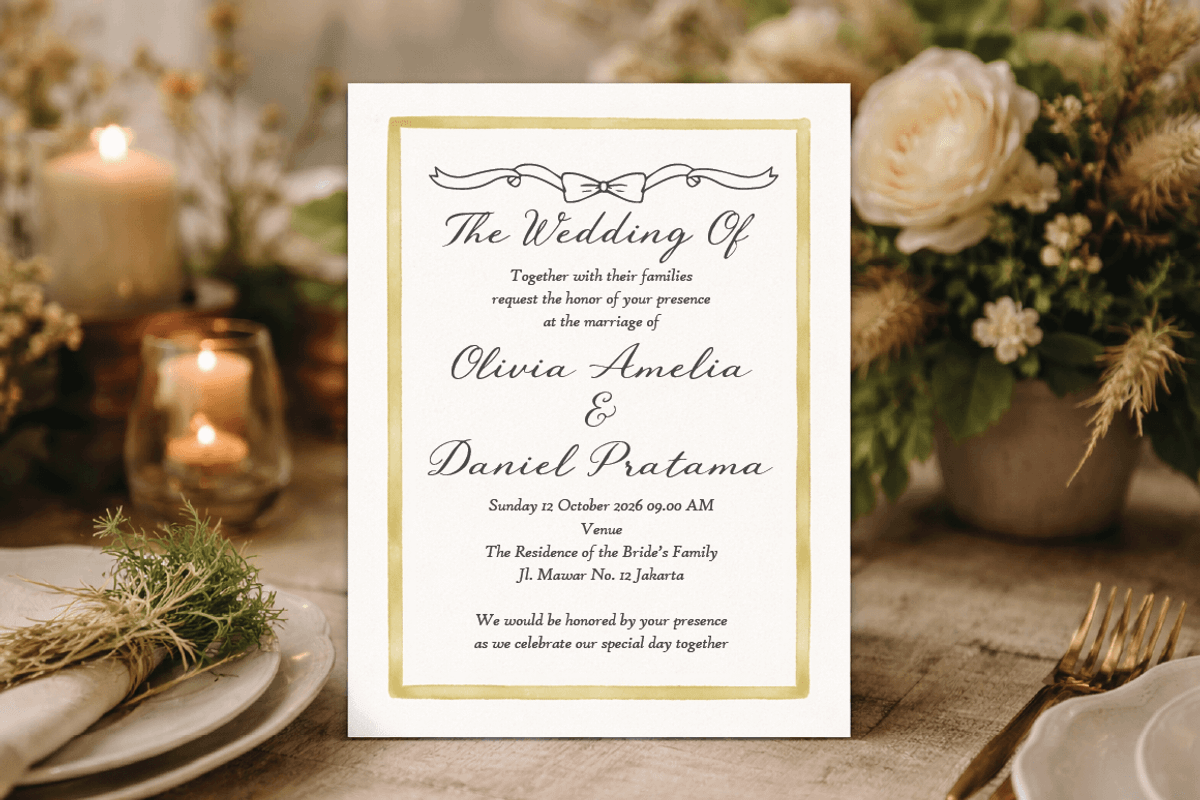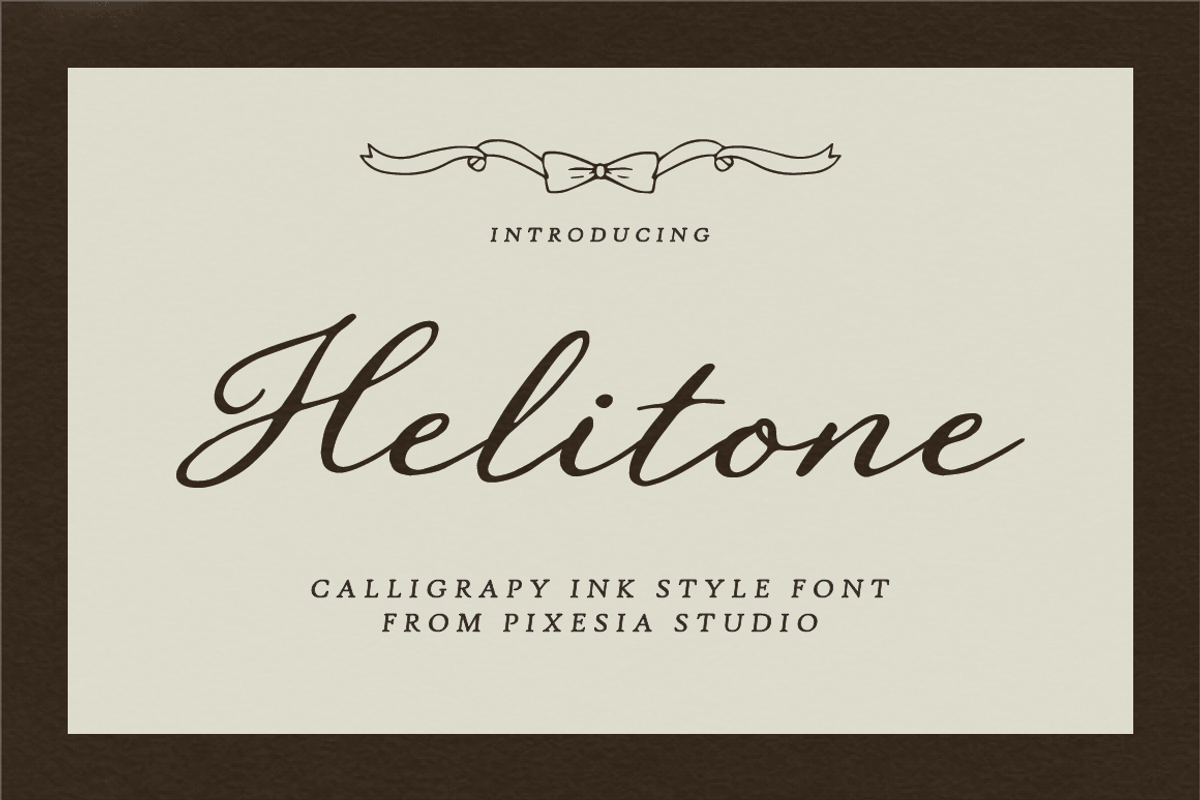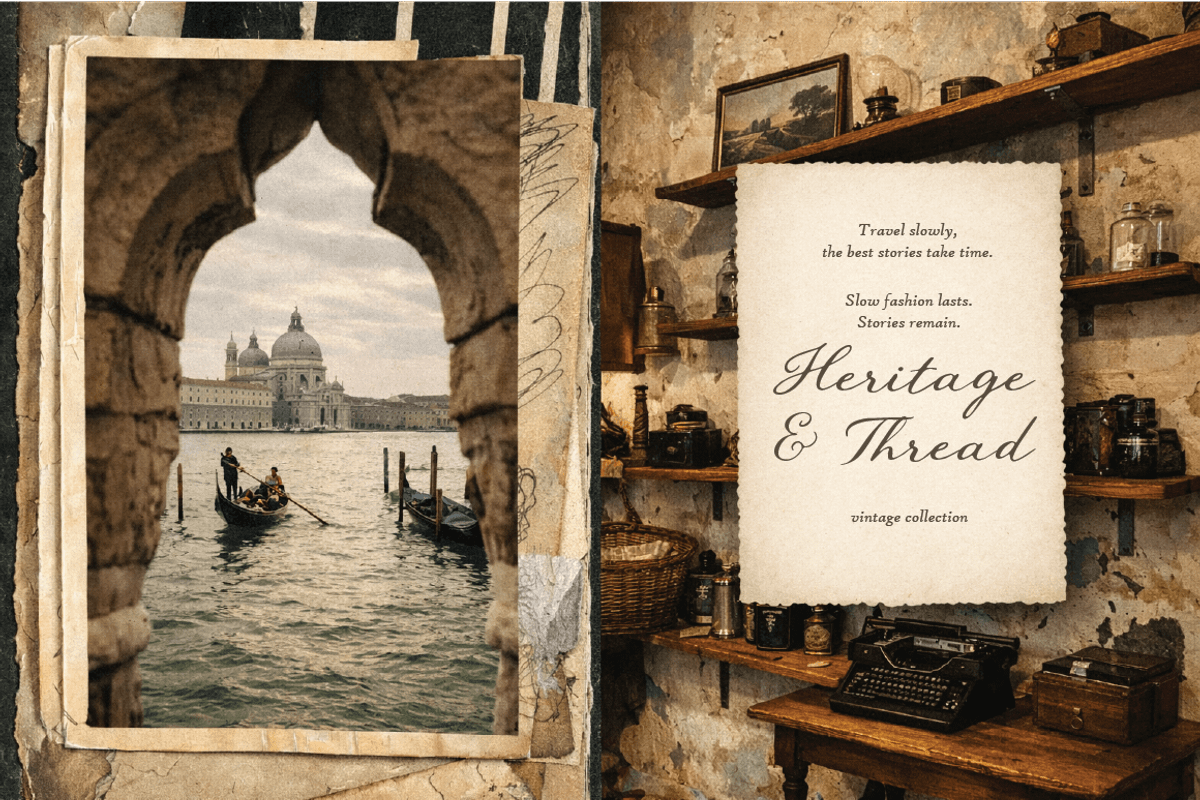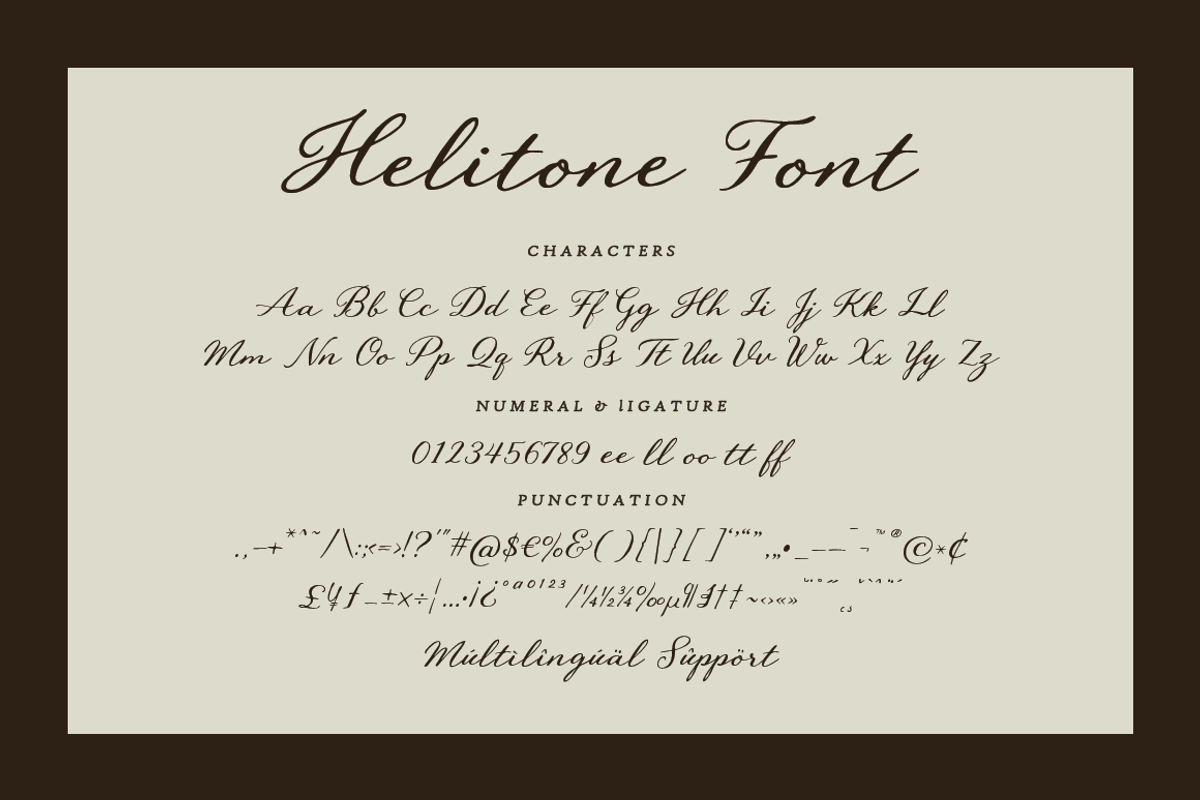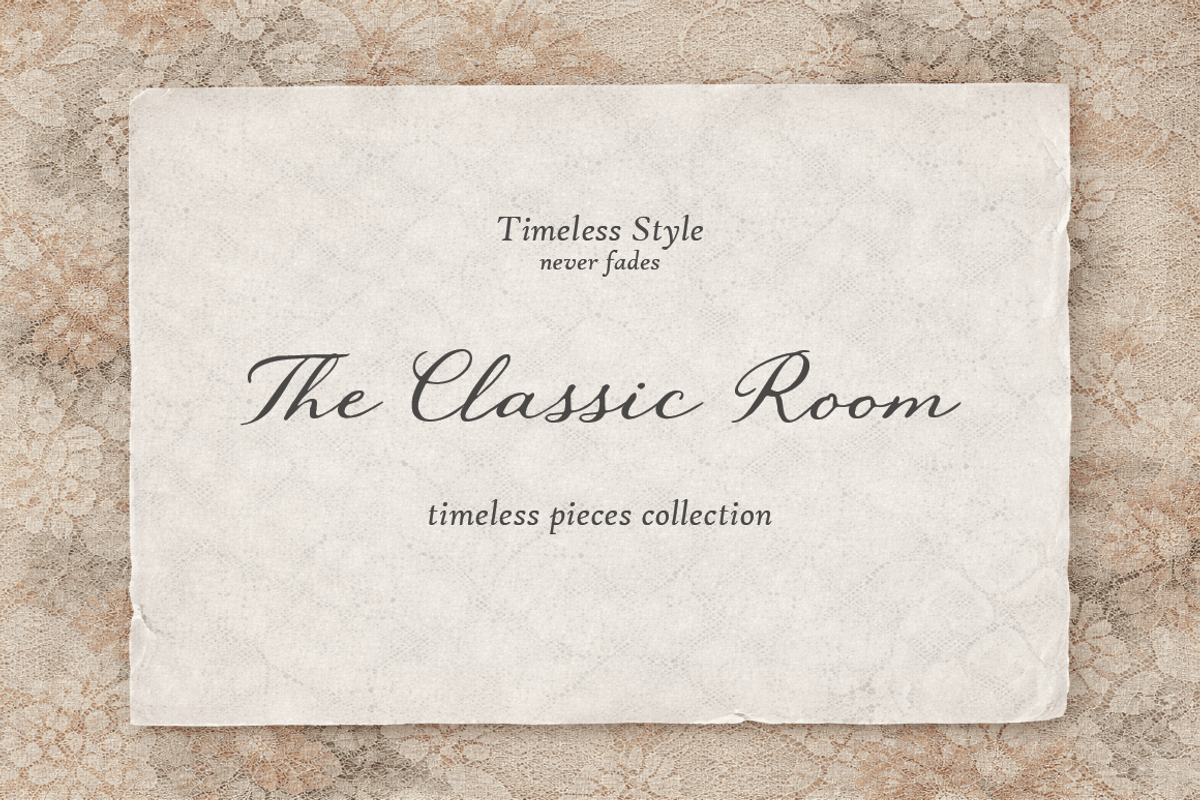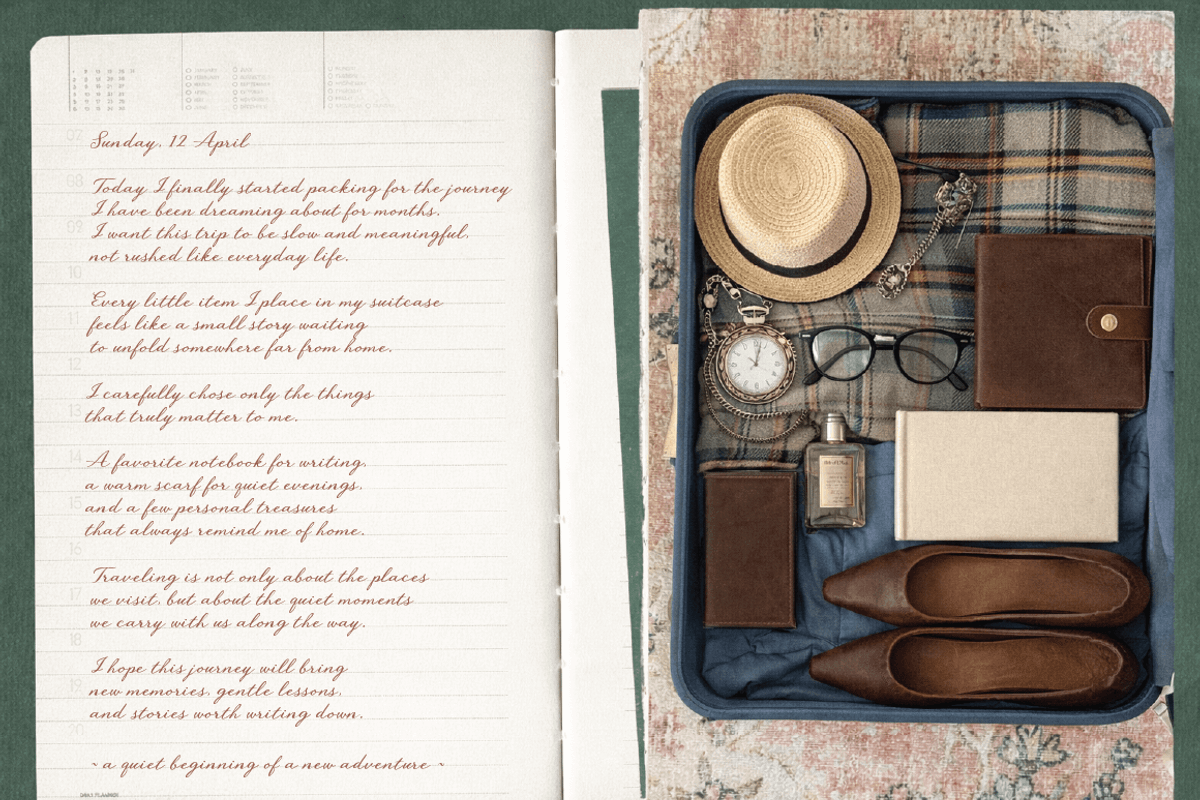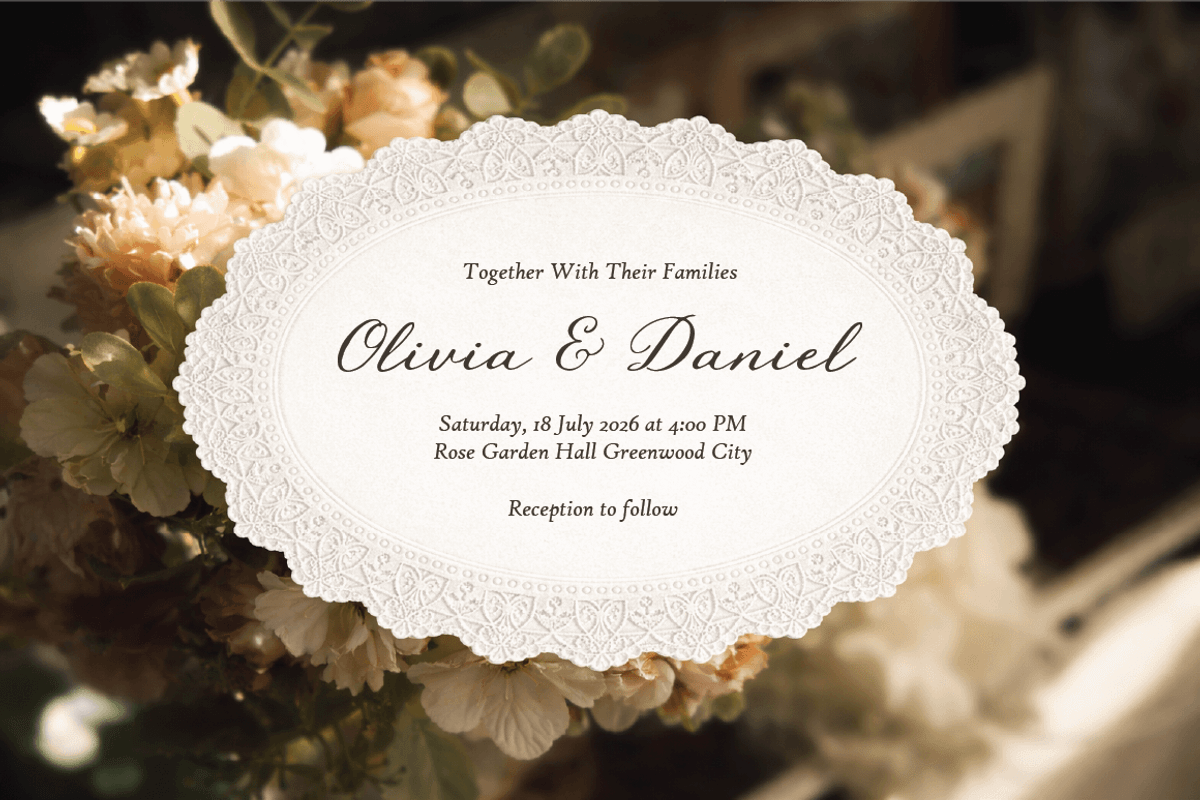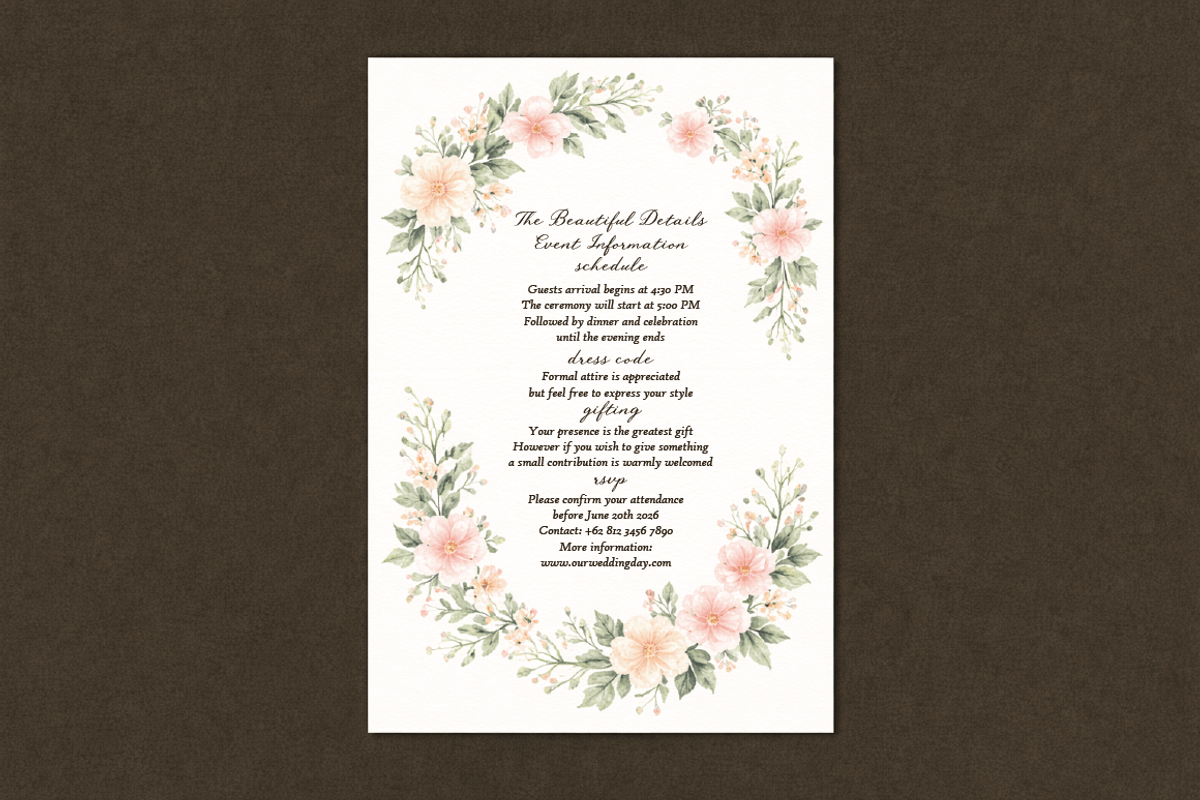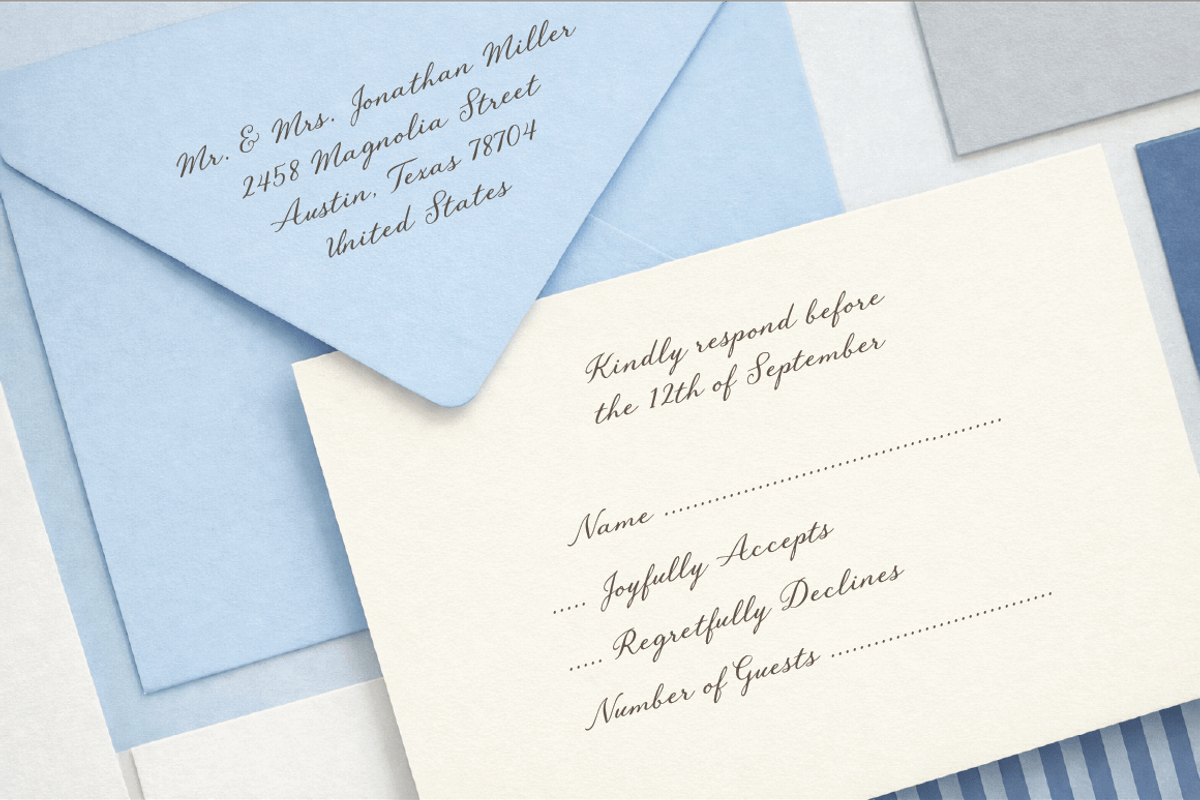
Helitone Elegant Calligraphy Script
Introducing Helitone - Elegant Calligraphy Script
Helitone is an elegant calligraphy script font inspired by smooth ink strokes and refined handwritten lettering. With its flowing curves, graceful connections, and natural rhythm, this typeface delivers a sophisticated and timeless aesthetic that feels both artistic and luxurious. Each character is carefully crafted to create seamless, beautiful typography.
Perfect for wedding invitations, branding, logos, packaging, beauty products, fashion designs, editorial layouts and social media content, Helitone adds a classy and expressive touch to any project. Whether you're creating romantic visuals or premium branding, this font brings elegance, charm, and professional polish to your design.